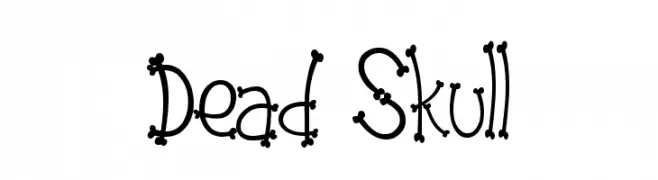
A bold, expressive script font with fluid strokes and dynamic flair.
An elegant, flowing script font with a modern, calligraphic style.
A bold, geometric font with a modern, futuristic style.
A bold, italic font with characters resembling bones, perfect for spooky themes.
A bold, playful font with exaggerated, irregular shapes and a whimsical style.
An elegant script font with flowing cursive characters and intricate swashes.
A dynamic and energetic script font with fluid, sweeping strokes and a personal touch.
A bold, brush script font with an energetic and artistic style.
A bold, decorative font with wing-like extensions and a gothic flair.
A bold, playful font with a chunky, hand-drawn style.